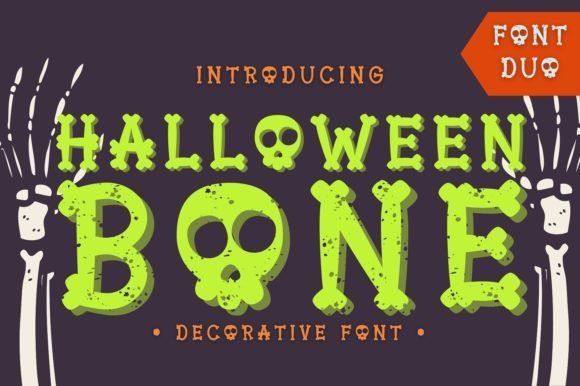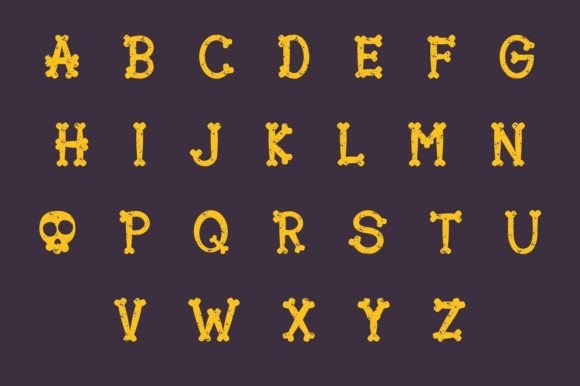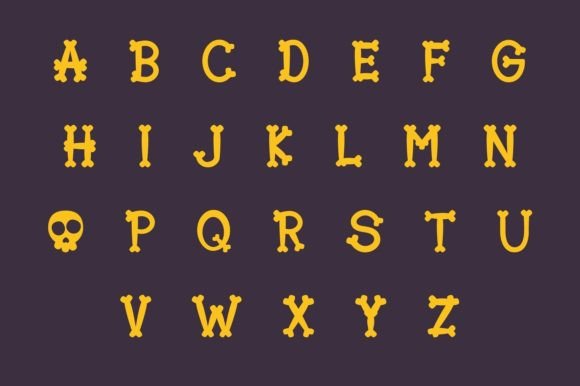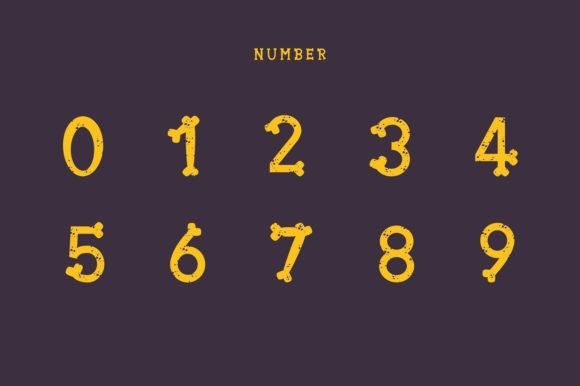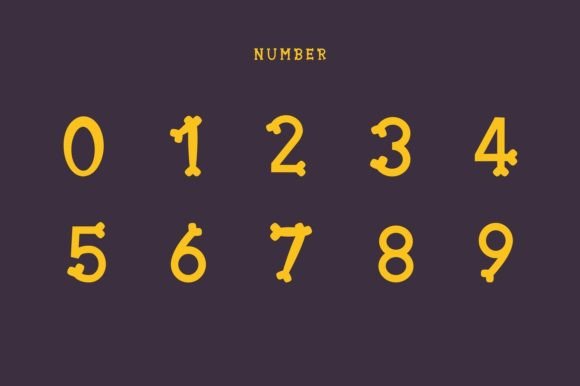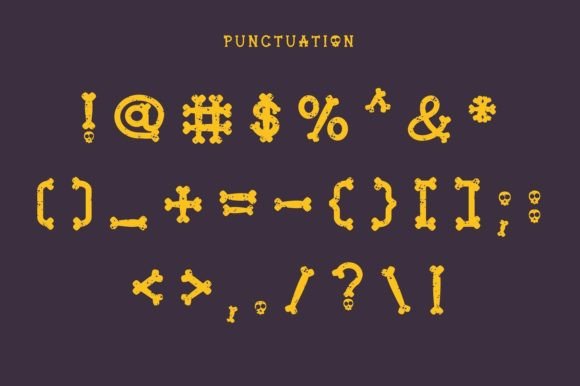
Unleash Your Inner Spook: Discover the Halloween Bone Font
As a designer, there’s nothing quite like the thrill of brainstorming a new project, especially one that involves the spooky and fun world of Halloween. You’re browsing through fonts, searching for the perfect one to set the tone for your design, and suddenly, you stumble upon it – the Halloween Bone Font. This eerie yet playful font is the perfect companion for any Halloween-themed project, from invitations to decorations, and even branding.
The Halloween Bone Font embodies the spirit of Halloween, blending playfulness and authenticity in a way that’s hard to resist. Whether you’re designing a spooky logo or a fun greeting card, this font is sure to add an extra layer of excitement to your work. As a designer, you know how valuable it is to have a versatile and unique font like the Halloween Bone Font in your toolkit, and we’re excited to share its magic with you.
Halloween Bone Font Key Features
- Font Style: Halloween-themed font with a bone-inspired design, suitable for horror, spooky, or autumnal themes.
- Unique Characteristics: The font features intricate bone-like designs, skulls, and other Halloween-themed elements, making it perfect for creating spooky and eerie atmospheres.
Halloween Bone Font Review
I must say, the Halloween Bone Font has its moments of charm. ✨ The spooky, skeletal design is perfect for creating a spooky atmosphere around Halloween or any other dark-themed project. The font is highly legible and can be used effectively in titles, headings, or even as a main font for a project.
- ✨ Highly legible, making it suitable for body text or titles
- ✨ Can be used for various dark-themed projects, from Halloween to horror movies or games
- ✨ Supports a wide range of languages, making it a great option for international projects
However, there are a few limitations to consider. ⚠️ The font may not be the best choice for projects that require a more professional or corporate look. The Halloween theme might come across as too childish or kitschy for certain audiences. Additionally, the font might not be as versatile as some other options, with limited styling options available.
Overall, I’d say the Halloween Bone Font is a solid choice for projects that need a spooky, dark atmosphere. While it may not be the most versatile font out there, it’s perfect for creating a specific type of mood or theme. Just be aware of its limitations and use it accordingly.
For the most out of the Halloween Bone Font, try:
- Pairing it with bold or italic fonts for contrast.
- Using it in combination with spooky graphics and images.
- Experimenting with different font sizes and colors.
The Halloween Bone Font is perfect for:
- Invitations and party decorations.
- Spooky social media posts and graphics.
- Haunted house and horror movie promotions.
Alternatives to Halloween Bone Font
Great Vibes is a playful, cursive script font perfect for creating whimsical and magical designs. It’s ideal for use in posters, invitations, and social media graphics. Unlike Halloween Bone Font, Great Vibes is more versatile and can be used for various themes beyond Halloween.
Comparison: While Halloween Bone Font is more spooky and eerie, Great Vibes is more cheerful and laid-back, making it a better choice for designs that require a more upbeat tone.
Carolyna Pro is a modern, elegant script font suitable for high-end designs, such as luxury branding, weddings, and fashion campaigns. It’s a great alternative to Halloween Bone Font for designers who need a sophisticated and refined font without the spooky connotations.
Comparison: Carolyna Pro is more polished and refined compared to Halloween Bone Font, which is more casual and playful.